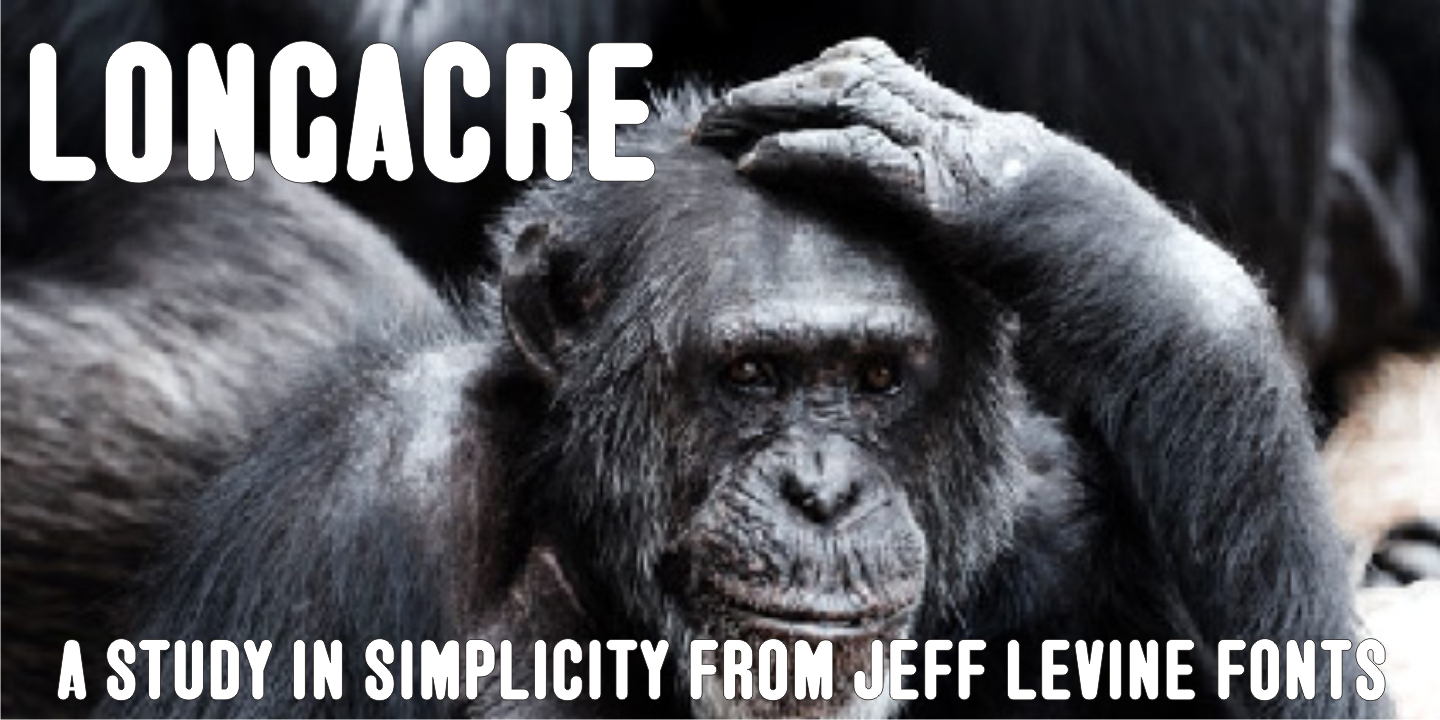
Longacre JNL Font is ideal for Broadway theater marketing, Times Square entertainment venues, classic New York signage, vintage theater district branding, nostalgic entertainment promotions, retro nightclub graphics, old-fashioned vaudeville posters, historic theater renovations, authentic NYC tourism materials, and traditional showbiz communications. This theatrical typeface excels in applications where Broadway glamour and classic entertainment heritage need to be communicated with authentic show business character and timeless theatrical sophistication that captures the golden age of American entertainment and New York's legendary theater district.
What makes Longacre JNL Font exciting is its remarkable ability to transport viewers directly to the heart of Broadway's golden era through its elegantly crafted letterforms that embody the sophisticated glamour and theatrical grandeur that made Times Square the entertainment capital of the world. The font captures the essence of classic show business with its refined construction and entertainment-focused proportions that suggest the marquee lights of legendary theaters and the polished professionalism of seasoned performers. Its carefully balanced character details and theatrical personality create an atmosphere of sophisticated entertainment that resonates with theater lovers, entertainment professionals, and anyone who appreciates the timeless magic of live performance.
The Longacre JNL Font family typically includes Regular and Bold weights, each maintaining the signature theatrical characteristics and Broadway elegance. Some versions offer decorative variants that enhance the marquee aesthetic, alternative character sets with entertainment symbols, and specialized elements inspired by classic theater signage. The family may also include condensed styles for efficient marquee layouts and display cuts optimized for maximum dramatic impact in entertainment and theatrical applications requiring authentic Broadway presence.
Whether you're creating theater brand identities, entertainment venue materials, or nostalgic Broadway-inspired designs, Longacre JNL Font Free Download delivers the perfect theatrical sophistication your show business projects deserve. Its Broadway character and entertainment styling make it an invaluable choice for theaters, entertainment venues, and cultural organizations working in live performance, theatrical entertainment, and Broadway tourism sectors where authentic theater district heritage and classic show business glamour are essential for connecting with audiences who appreciate the enduring magic of live entertainment.